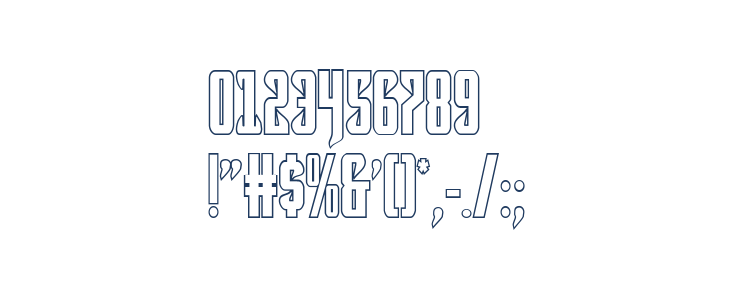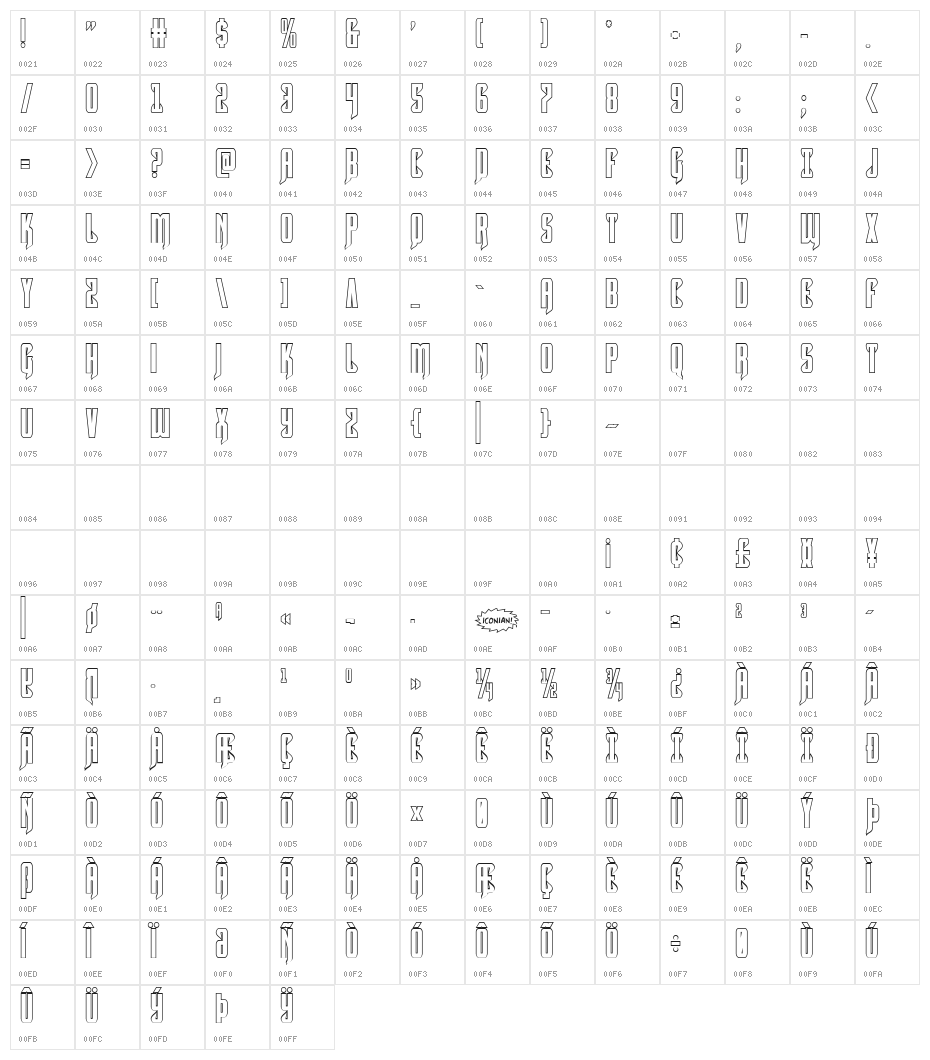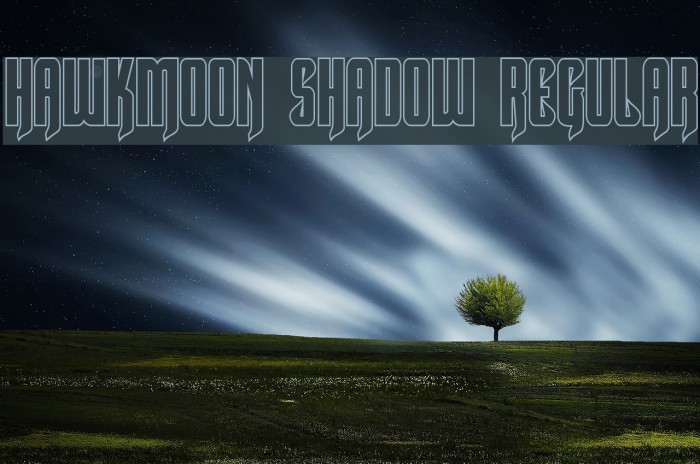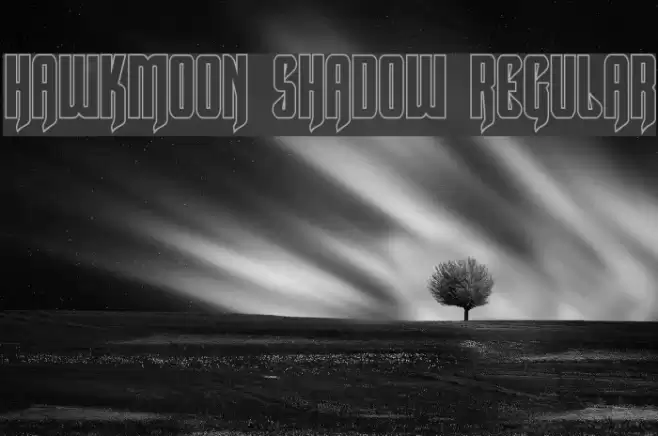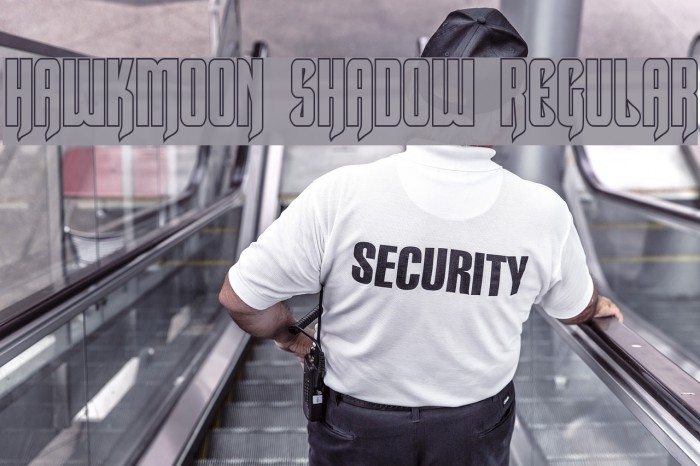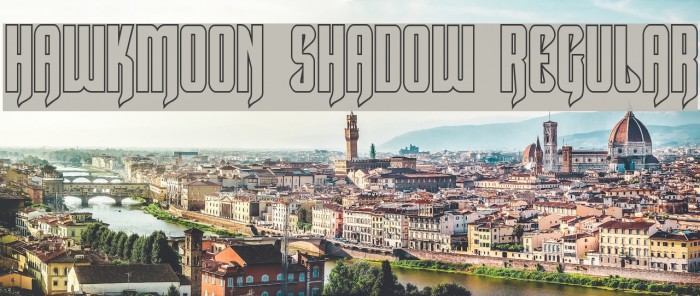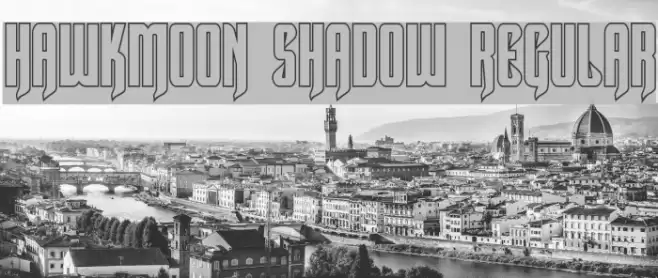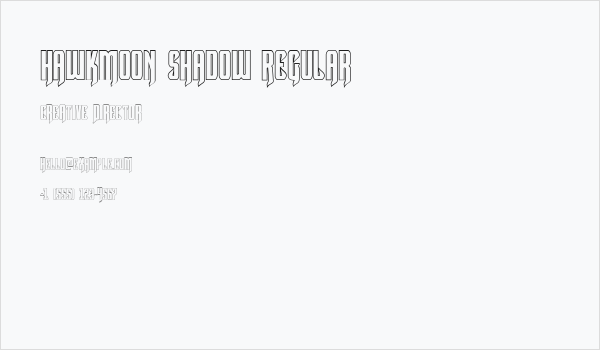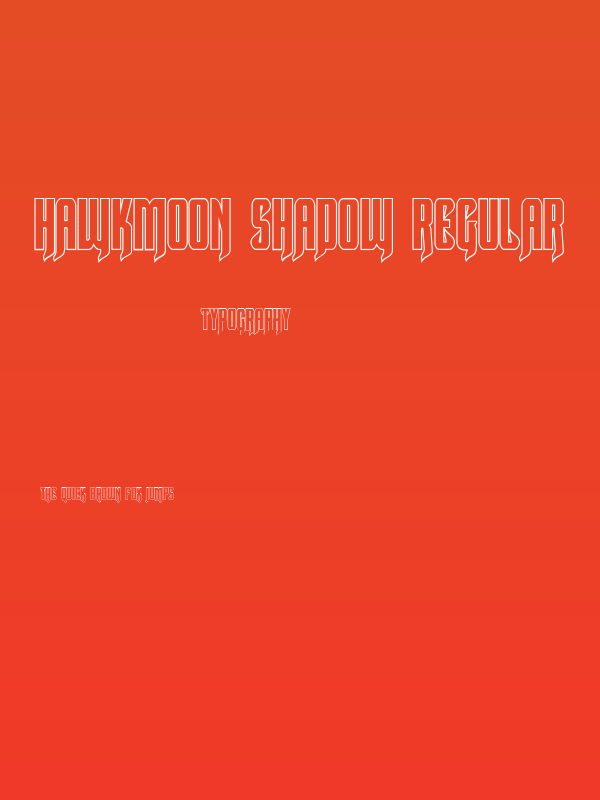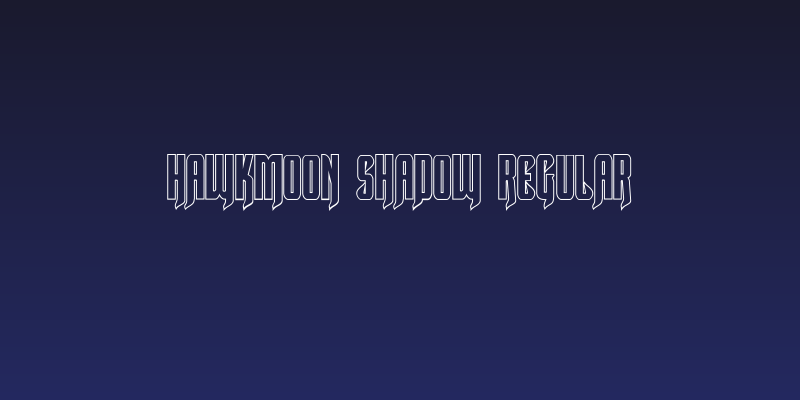
Hawkmoon Shadow Regular Font
Hawkmoon Shadow Regular Description
This font features a bold, geometric design with a distinct shadow effect that gives it a three-dimensional appearance. The characters are tall and narrow, with sharp angles and clean lines, creating a modern and futuristic look. The shadow effect adds depth and makes the text stand out, making it ideal for attention-grabbing headlines or titles. The font maintains a consistent width across all characters, ensuring a uniform appearance. Its unique style is both eye-catching and versatile, suitable for a variety of design projects.
| Proposed Projects | Ideal for posters, logos, video game graphics, and futuristic design themes. |